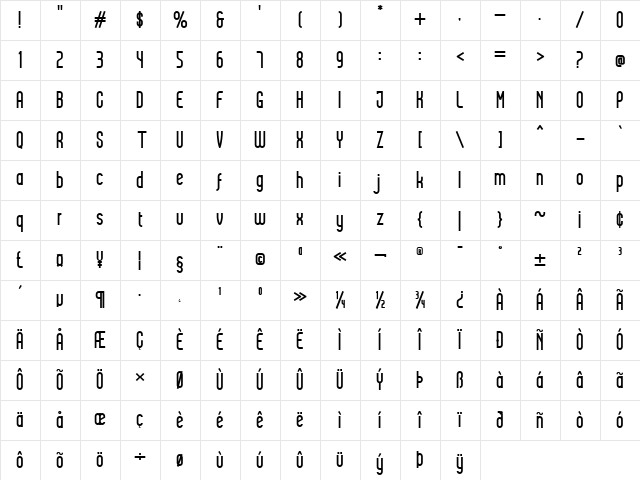
DELVON DEMO Free Font
DELVON DEMO DELVON DEMO
Style: DELVON DEMO
Foundry: Suandana Ipandemade
Designer: Suandana Ipandemade
DELVON DEMO is a composed and adaptable typeface that performs quietly and consistently across a wide range of design contexts.